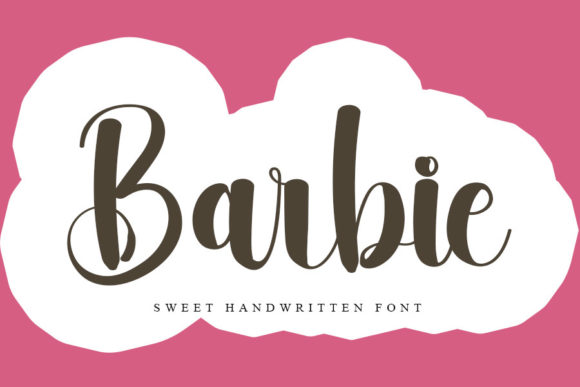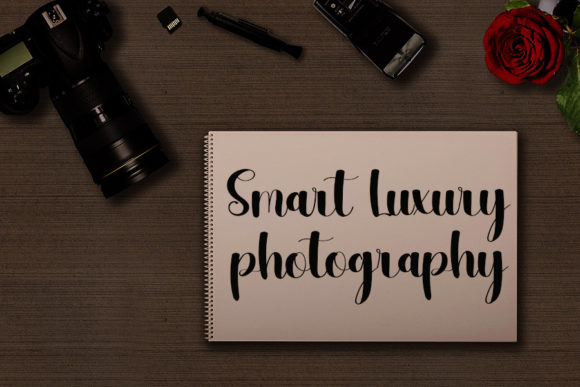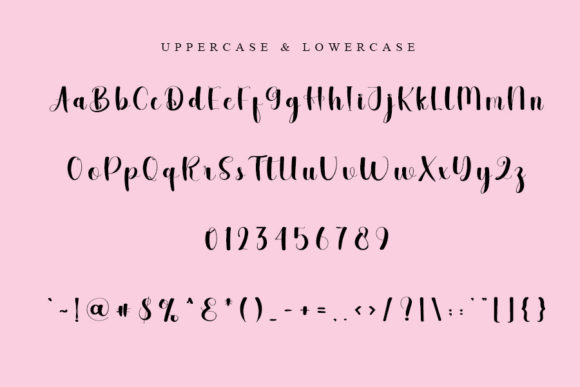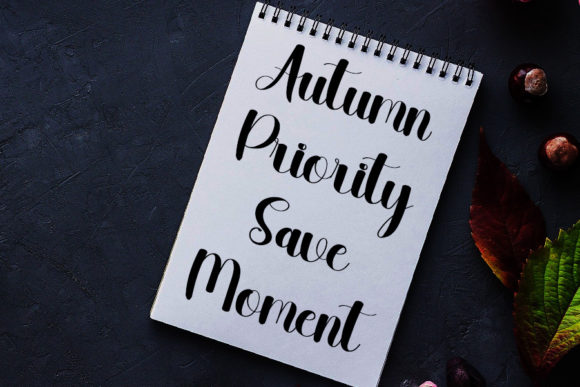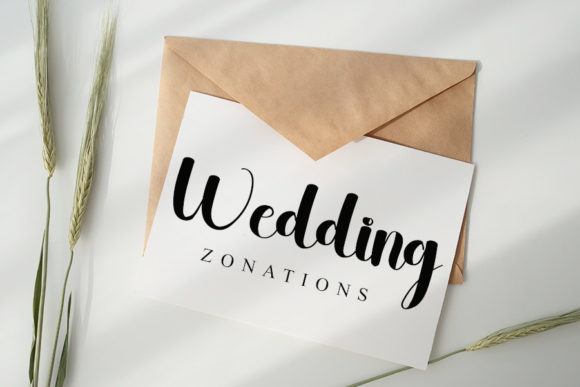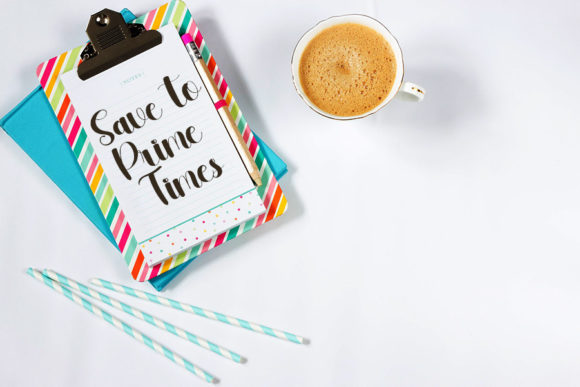
Barbie Font
About Barbie Font
Barbie is a trendy handwritten font that carries a contemporary atmosphere and impeccable form. This font is inspired by timeless classic calligraphy, infusing a sense of elegance and class into any design project it graces.
The Barbie font is more than just a typeface; it’s a design element that can transform and elevate your projects. Its versatility allows it to be used across various kinds of products, adapting to the unique aspects of each requirement. Whether you’re designing a chic logo, crafting an elegant invitation, or creating a stylish website, Barbie is the perfect font to enhance your design.
One of the standout features of the Barbie font is its contemporary atmosphere. It’s a modern interpretation of classic calligraphy, blending the charm of tradition with the freshness of innovation. This balance ensures that your designs will always stay relevant and stylish.
Moreover, the Barbie font is designed with an impeccable form that adds a touch of sophistication to your projects. Its clean lines and well-defined curves make it a joy to work with, ensuring that your designs not only look good but also communicate your message effectively.
In conclusion, the Barbie font is more than just a trendy handwritten font. It’s a versatile design tool that brings a contemporary atmosphere and impeccable form to your projects. Its inspiration from timeless classic calligraphy ensures that it adds a touch of elegance and class to your designs. Experience the Barbie difference today and see how it can transform your design projects.